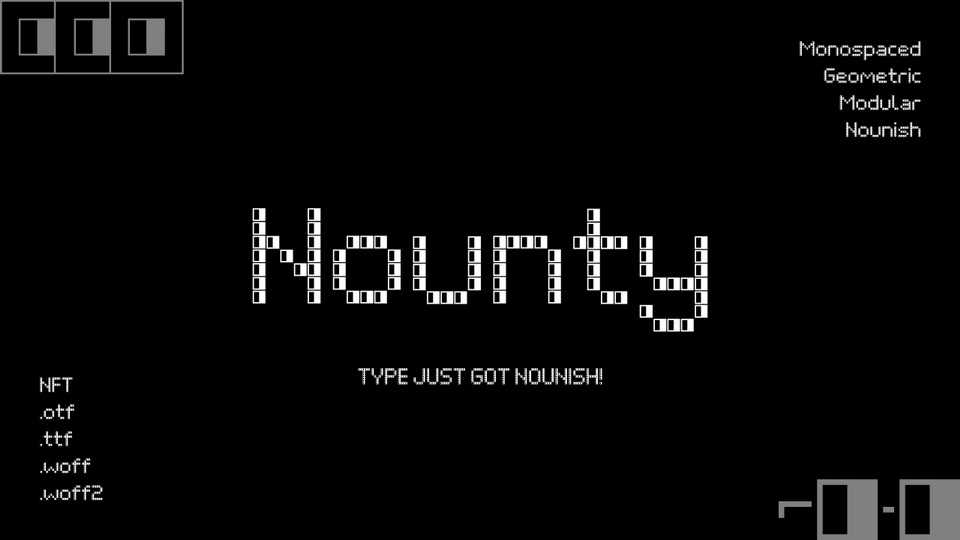
Download Nounty font, the first ever ready to use Nounish themed typeface comes with .otf .ttf .woff .woff2, and a collectible NFT. Nounty is a modular font that has the signature Nounish style blocks as modules.